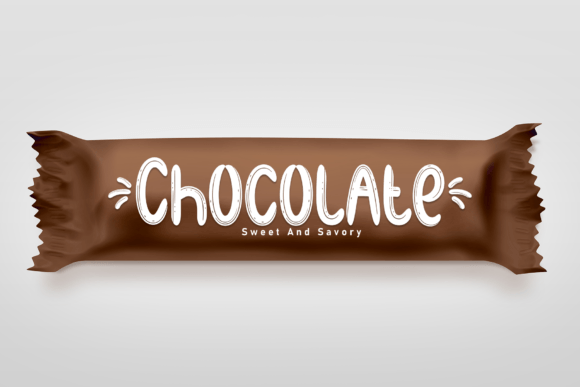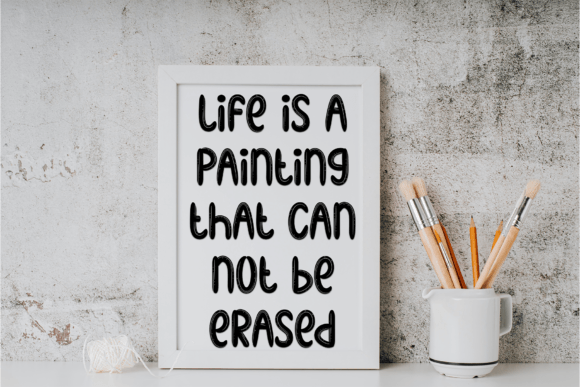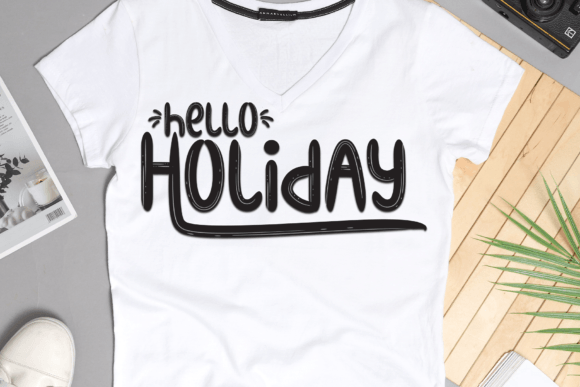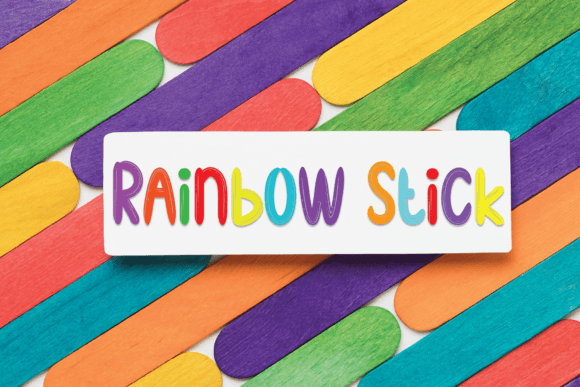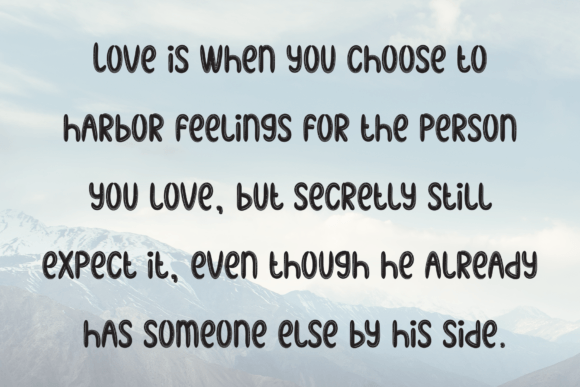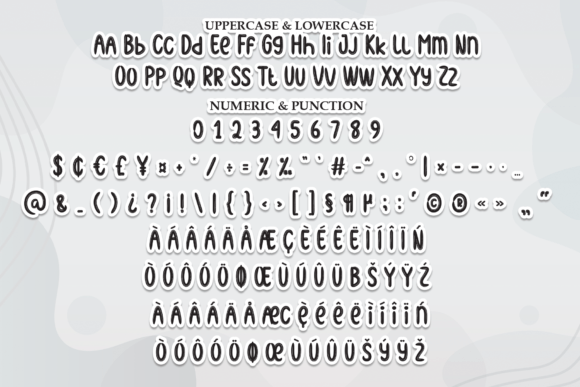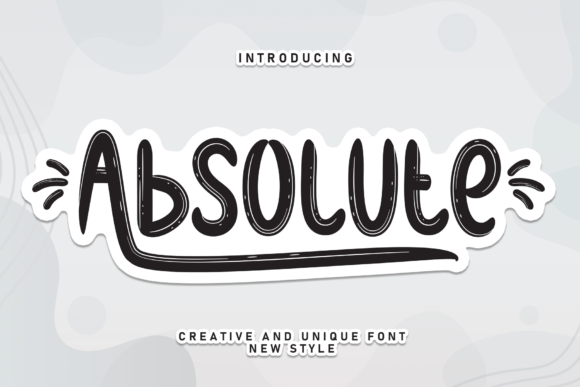
The Quest for the Perfect Font: Discovering Absolute
I still remember the time I was working on a wedding invitation project, and my client asked for a font that was both elegant and playful. I scoured the internet, tried out countless fonts, but nothing seemed quite right. That was until I stumbled upon Absolute, a sweet and friendly handwritten display font that instantly captured the essence of the project. In this article, I’ll share my experience with Absolute, and explore its features, uses, and alternatives.
An Honest Review of Absolute
Absolute is a beautiful, handwritten display font that’s perfect for adding a touch of whimsy to your designs. Here are some things I love about it:
- ✨ Sweet and friendly vibe that’s perfect for wedding invitations, cards, and other designs that need a personal touch
- ✅ Highly legible, even at smaller sizes
- 💕 Beautifully crafted letters with a playful, handwritten feel
Of course, no font is perfect, and Absolute has a few small quirks:
- 🤔 Limited character set, which can make it less suitable for body text or long-form writing
- ⚠️ Some users may find the font a bit too playful or informal for certain projects
The Story Behind Absolute
Absolute was designed by a team of typographers who wanted to create a font that was both beautiful and fun. Inspired by the elegance of handwritten script and the playfulness of modern typography, Absolute was born. With its sweet and friendly vibe, Absolute has become a popular choice among designers and crafters who want to add a personal touch to their designs.
| Font Name | Absolute Font |
| What is Absolute? | Absolute is a sweet and friendly handwritten display font that’s perfect for adding a touch of whimsy to your designs. |
| Is Absolute suitable for body text? | No, Absolute is best suited for display text, such as headings and titles. Its limited character set and playful feel make it less suitable for body text or long-form writing. |
| Does Absolute support OpenType features? | Yes, Absolute supports OpenType features, such as ligatures and stylistic alternates, which can be used to add more personality to your text. |